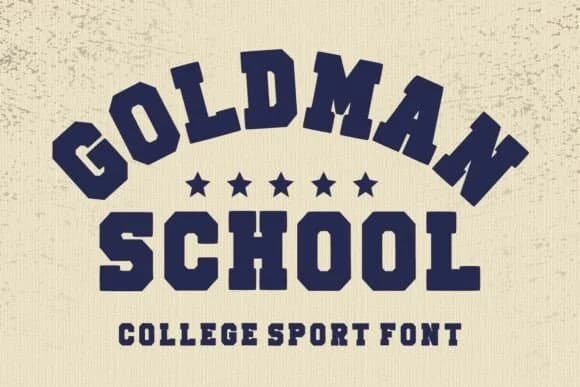
Goldman School by Infinity art Studio is a bold slab-serif that draws from classic collegiate and athletic design traditions. Built with substantial weight and vintage character throughout, it brings real gravitas to any project rooted in sports heritage or retro aesthetics. The typeface doesn't whisper, it announces.
This font excels on varsity team apparel graphics, athletic event signage for tournaments and championships, vintage sports promotional posters, and athletic team logo lockups where you need authoritative, established visual presence. It works beautifully on retro-inspired product packaging for heritage brands or craft breweries leaning into nostalgia, and equally well on large-format signage for fitness facilities, sports clubs, and athletic venues. Every character carries the same bold, sturdy quality that reads as strength and tradition without veering into parody.
What makes Goldman School functional is its visual confidence. The weight and proportions hold at any scale, whether you're setting sport event program headlines or constructing emblem-style branding marks and badge designs. It's the kind of typeface that grounds a design in substance and authenticity rather than following fleeting trends. Find Goldman School on Creative Fabrica when you need a typeface with genuine athletic heritage in its DNA.
Goldman School Font is a slab serif font that shines as a display or heading face. Pair it with a clean sans-serif or serif font for body text β the contrast creates a clear hierarchy while the two styles stay balanced and easy to read.
Goldman School Font